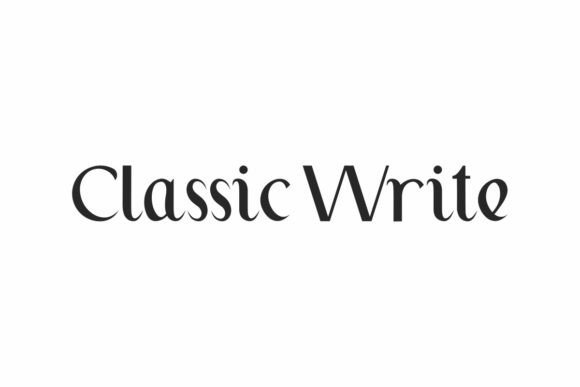
Welcome to the world of Classic Write, a font that exudes timeless elegance and effortless style. Immerse yourself in the beauty of simplicity as you explore this captivating creation by NihStudio, designed to bring a touch of sophistication to your creative endeavors.
Step into a realm where handwritten charm meets digital artistry. Classic Write's delicate strokes and flowing lines evoke a sense of nostalgia, while its clean and crisp structure ensures that your designs maintain a contemporary edge. Whether you're crafting logos, designing websites, or creating stunning social media graphics, Classic Write is your perfect companion.
Let Classic Write transport you to a world of endless possibilities. Its versatility knows no bounds, seamlessly adapting to a diverse range of projects. From fashion brands yearning for a touch of understated luxury to creative professionals seeking a font that radiates both warmth and professionalism, Classic Write delivers.
Experience the power of simplicity as Classic Write transforms your designs into masterpieces. Its intuitive nature makes it a breeze to use, while its unmatched beauty ensures that your creations stand out from the crowd. Embrace the timeless allure of Classic Write and embark on a journey of creativity that will leave an unforgettable mark.